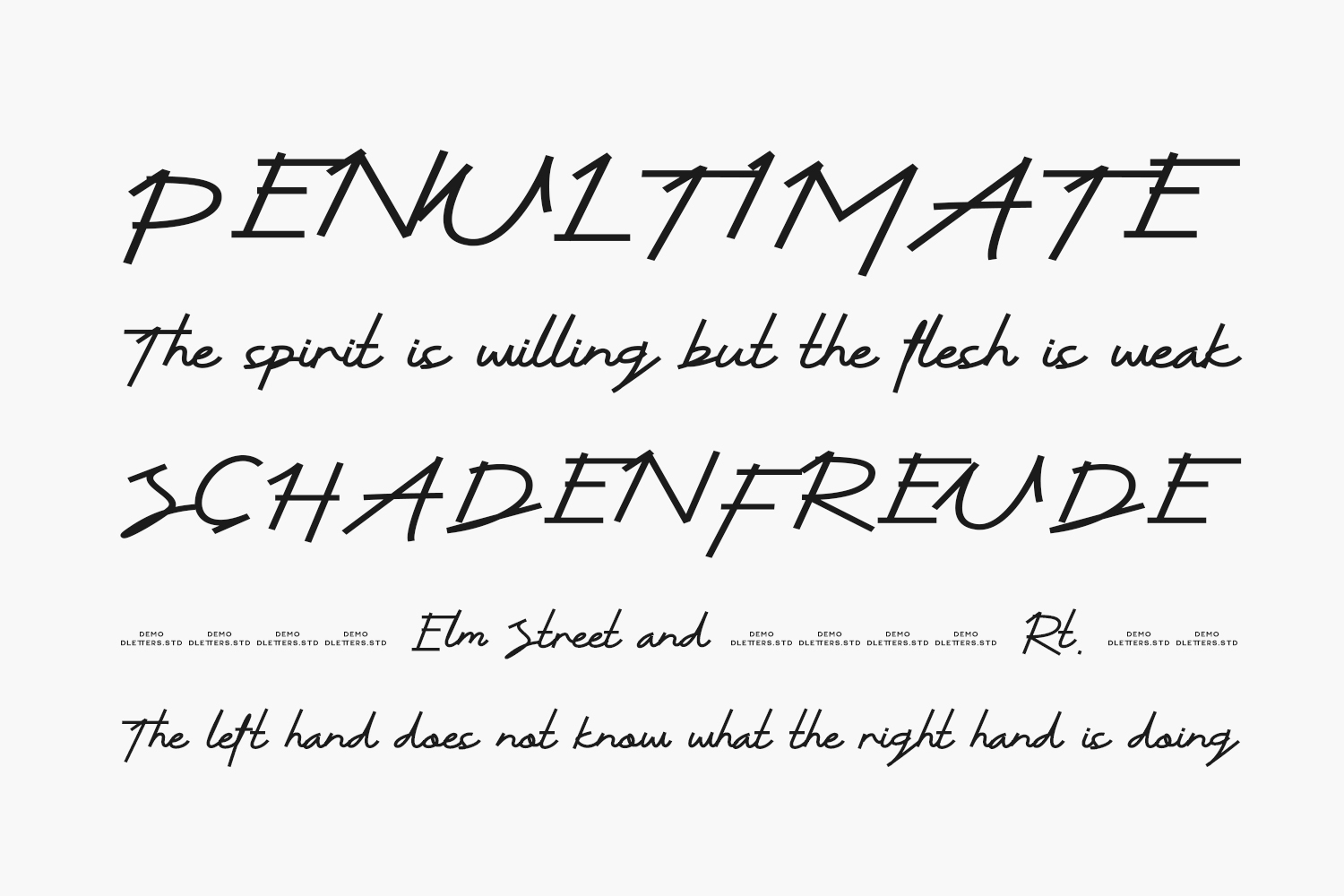
Introducing Hello Alexandria Free Font, an exceptional and sophisticated handwritten font. This font adds a touch of uniqueness and elegance to a wide range of designs that demand a personalized touch. From exquisite wedding invitations to heartfelt thank you cards, from memorable weddings to charming greeting cards, and even logos with a personal flair, Hello Alexandria effortlessly enhances their beauty. Discover the exquisite allure of this font and elevate your designs to new heights of elegance and distinction. Hello Alexandria Free Font is a demo and free for personal use only. Please purchase the full version for commercial use.